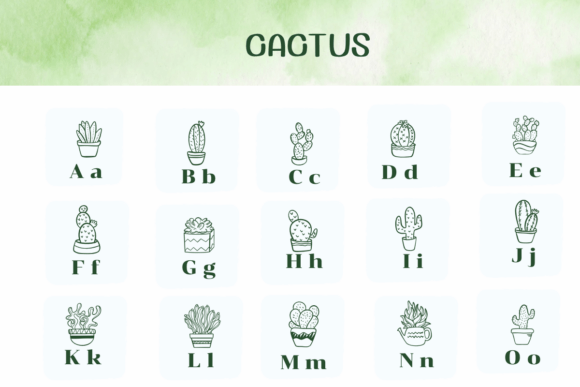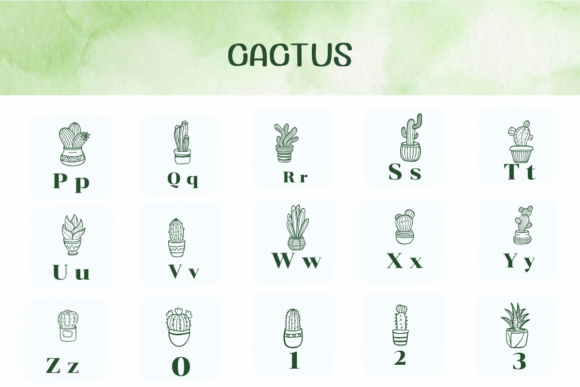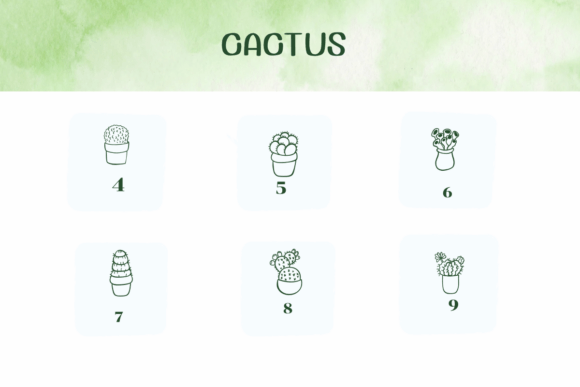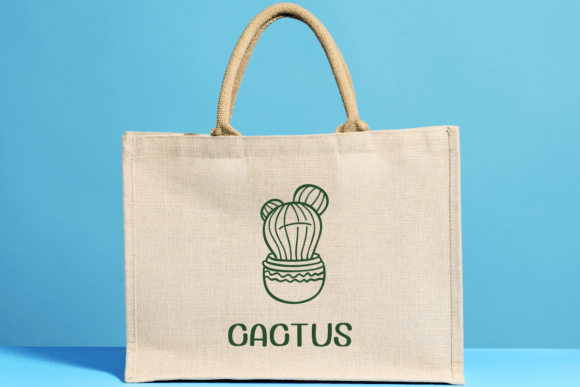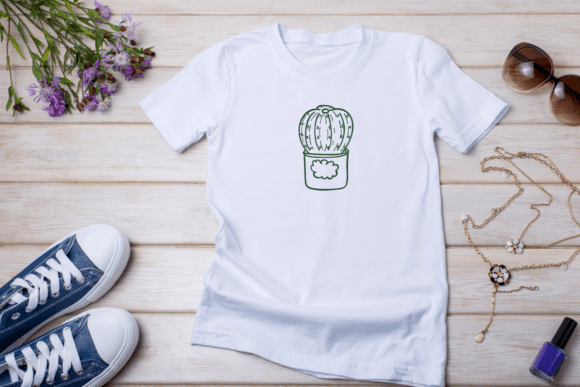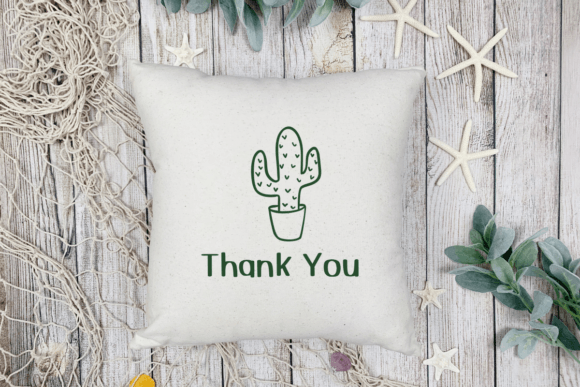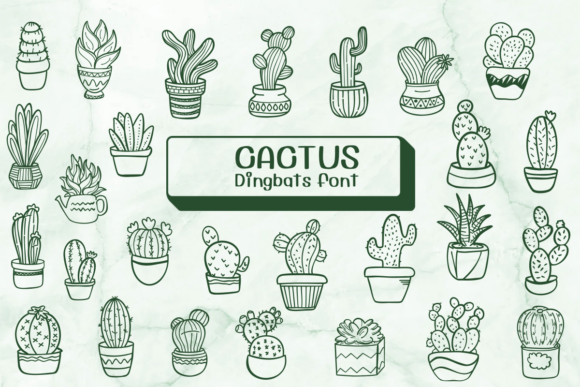
The Prickly yet Perfect Cactus Font: A Designer’s New Best Friend
I still remember the design project that led me to discover the Cactus font. I was working on a wedding invitation for a dear friend, and I wanted to add a touch of whimsy and playfulness to the design. As I scrolled through font after font, nothing seemed quite right β until I stumbled upon Cactus. Its natural, sketchy style instantly captured the carefree spirit of the couple, and I knew I’d found the perfect fit.
An Honest Review: The Good, the Great, and the Quirky
What I Love About Cactus Font
- β¨ Unique, hand-drawn aesthetic that adds a personal touch to any project
- β Extensive character set, including plenty of glyphs and stylistic alternates
- πΏ Perfect for a variety of creative projects, from wedding invites to DIY crafts
- π» Works beautifully in digital formats, including logos and social media graphics
While Cactus is an amazing font, it’s not without its quirks. For instance, β οΈ some users have reported issues with kerning and spacing, particularly when using certain character combinations. Additionally, π€ the font’s highly stylized nature means it may not be the best choice for very formal or traditional designs.
The Story Behind Cactus: A Designerβs Inspiration
According to its creators, Cactus was inspired by the natural world β specifically, the intricate patterns and shapes found in cacti and succulents. The designers aimed to capture the essence of these plants in a font that was both playful and elegant.
| Font Name | Cactus Font |
| Author | Ketsarin |
Q: What type of projects is Cactus best suited for?
A: Cactus is a versatile font that can be used in a wide range of creative projects, from wedding invitations and DIY crafts to logos and social media graphics.